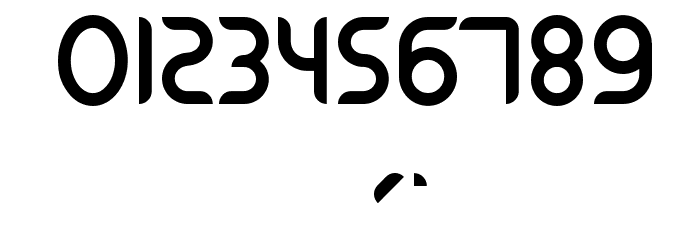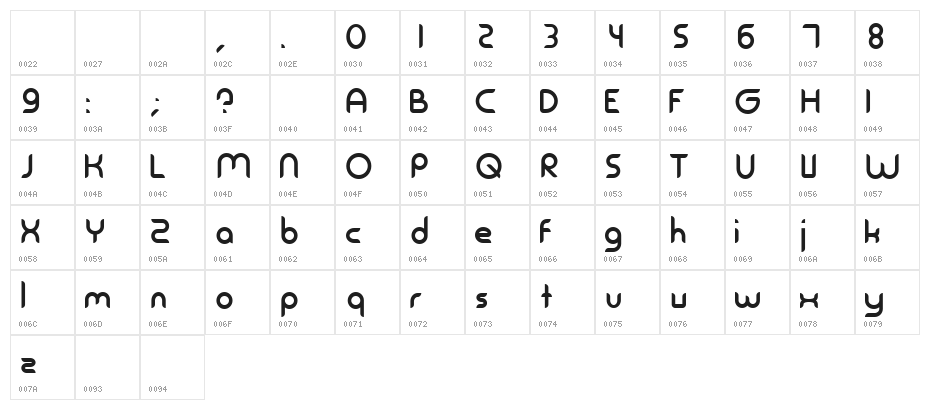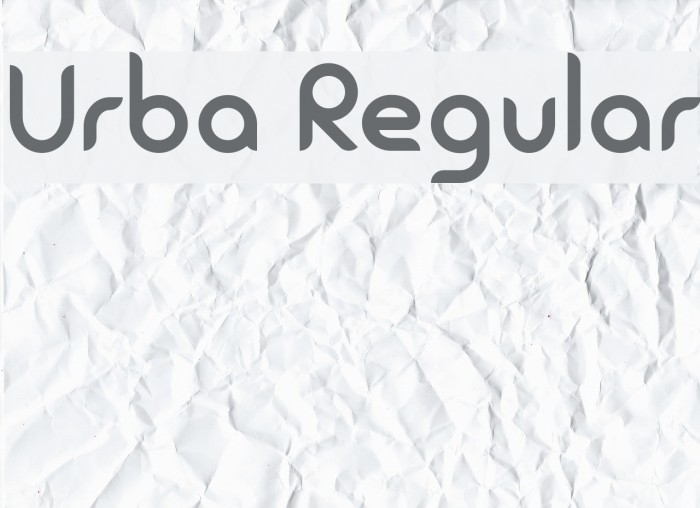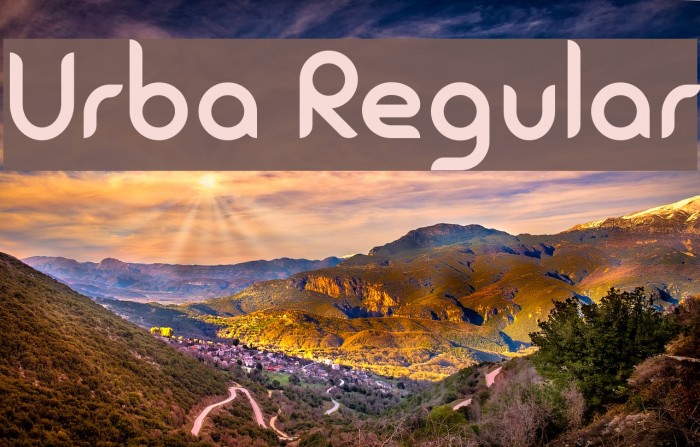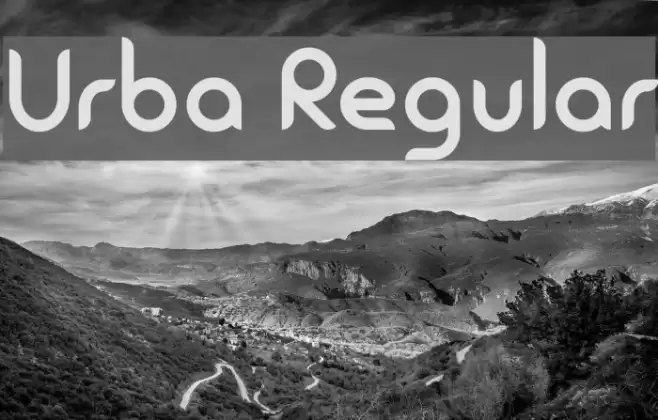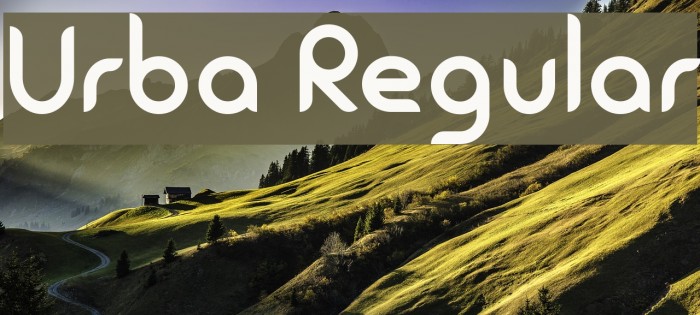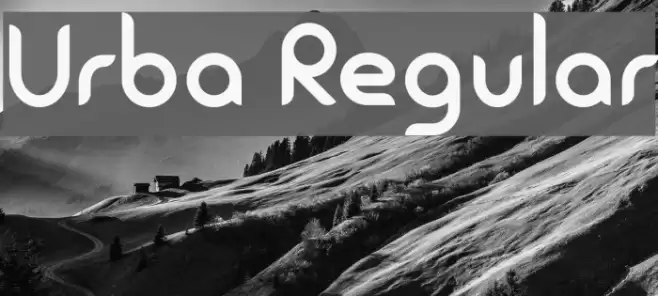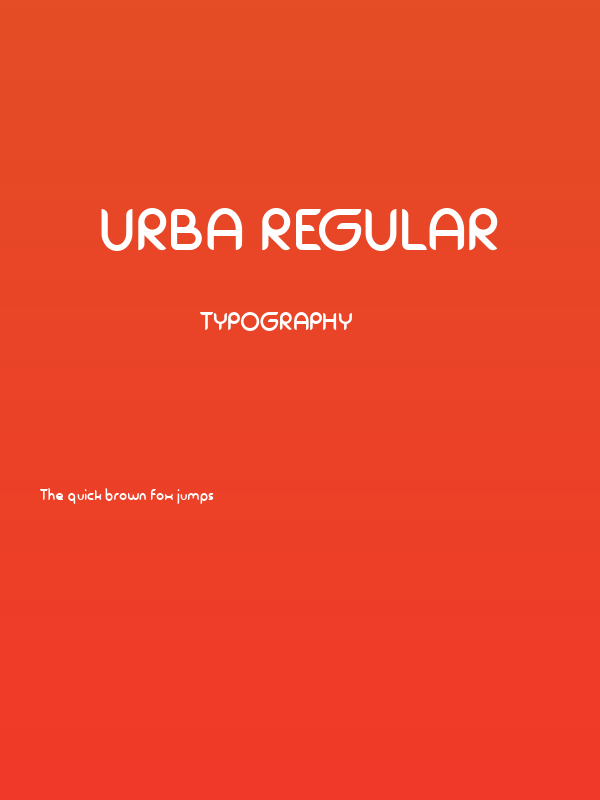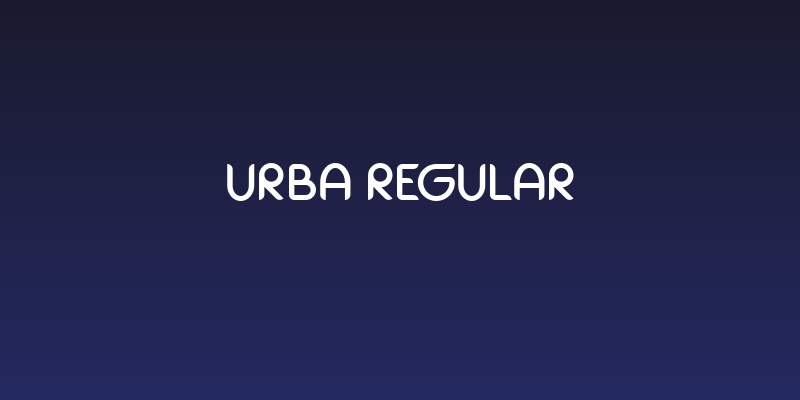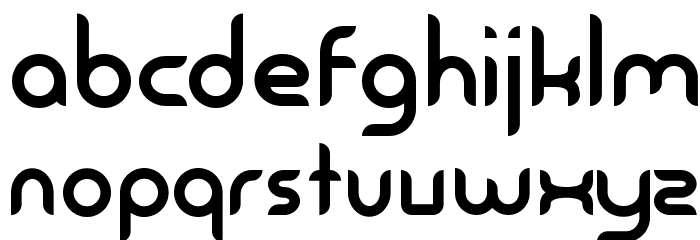
Urba Regular Font
Urba Regular Description
This font features a modern, rounded design with smooth curves and a clean aesthetic. The characters are evenly spaced, providing a balanced and harmonious look. The uppercase letters are bold and prominent, while the lowercase letters maintain a consistent style with slightly softer edges. The numerals are clear and easy to read, complementing the overall design. Special characters are integrated seamlessly, maintaining the font's cohesive appearance. This typeface is versatile, suitable for various design projects that require a contemporary and approachable feel.
| Use Case | Headlines, Logos, Digital Media |
| Proposed Projects | Ideal for branding, advertising, digital media, and user interface design. |